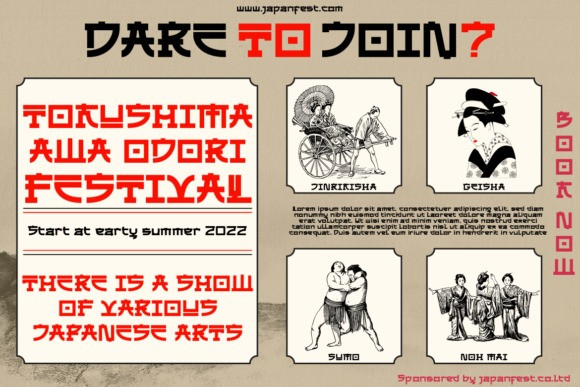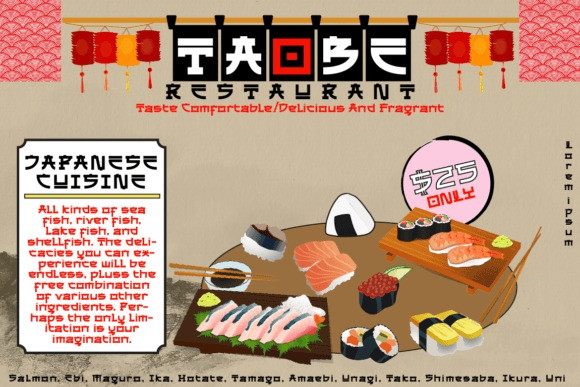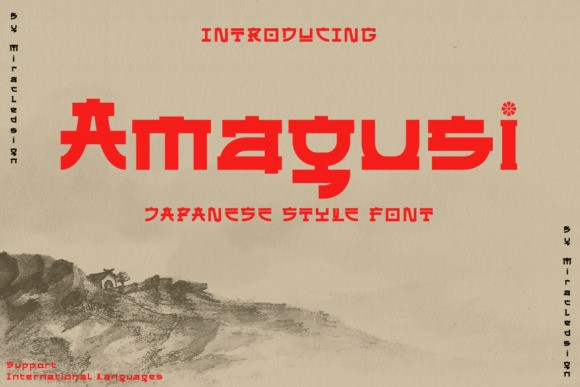
Amagusi Font
Amagusi Font is a display font inspired by the Japanese culture with all its uniqueness and beauty that makes the bamboo curtain country so loved. This font is also inspired by the art of writing kanji, which has its own aesthetic value.
The Amagusi font is formed by combining the contours and anatomy of kanji letters so that it has a beautiful value when used in a sentence.